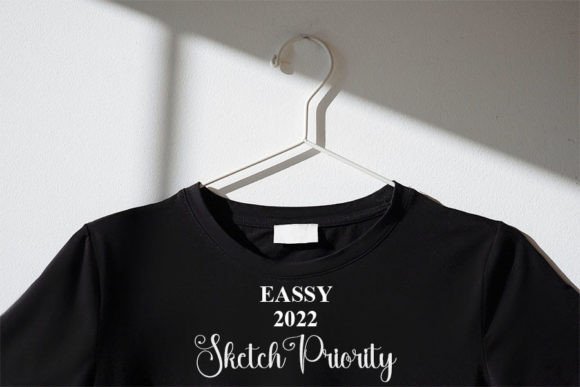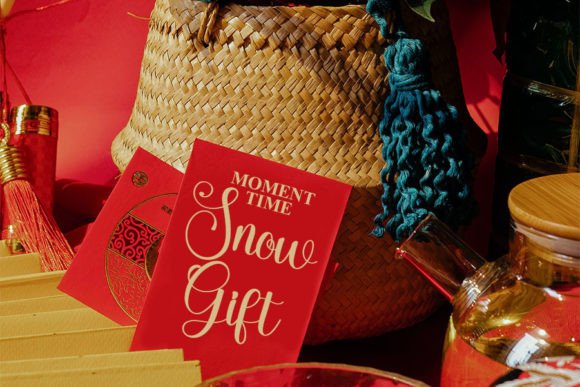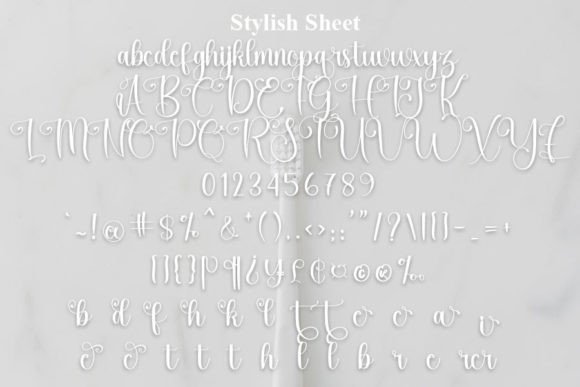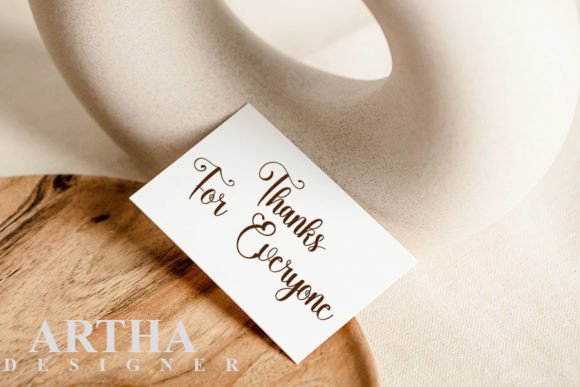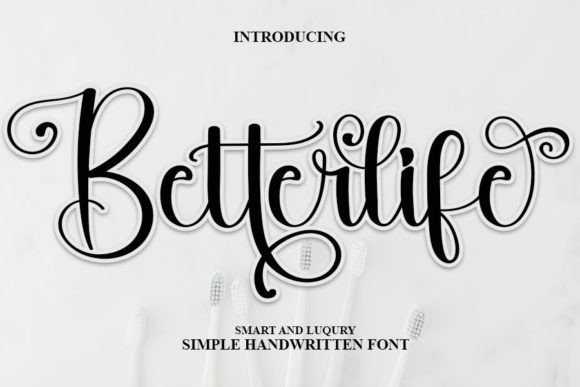
The Designer’s Delight: Unpacking the Betterlife Font
I’ll never forget the frustration of working on a branding project, only to hit a roadblock when searching for the perfect font. My client wanted something stylish, yet timeless; elegant, yet approachable. As I scrolled through font after font, I knew there had to be something better out there. That’s when I stumbled upon Betterlife – a stylish handwritten font that instantly captured my attention.
Here’s what I love about Betterlife:
- ✨ Timeless appeal: Betterlife’s classic calligraphy inspiration gives it an air of sophistication and elegance.
- ✅ Balanced and varied: The font’s nuanced strokes and carefully crafted letterforms make it perfect for a wide range of projects.
- 💫 Contemporary atmosphere: Despite its classic roots, Betterlife feels fresh and modern – ideal for designers looking for a font that’s both stylish and versatile.
As for quirks or limitations, I did notice:
- 🤔 Limited multilingual support: While Betterlife covers the basics, it might not be the best choice for projects requiring extensive multilingual support.
- ⚠️ Occasional kerning issues: As with any font, you might need to tweak kerning for optimal results, especially in larger text blocks.
- Experiment with OpenType features, such as stylistic alternates, to add visual interest to your text.
- Explore the OpenType panel to access glyphs, ligatures, and other advanced typographic features.
The Story Behind Betterlife: Designer Inspiration
According to its creators, Betterlife was inspired by the timeless beauty of classic calligraphy. The designers aimed to craft a font that would bring a touch of elegance and sophistication to any project, while still feeling approachable and modern. By combining traditional techniques with contemporary sensibilities, they created a truly unique and versatile font.
Q: What makes Betterlife a great choice for branding projects?
A: Betterlife’s classic calligraphy inspiration, combined with its modern sensibilities, make it an excellent choice for branding projects that require a touch of sophistication and elegance.
Q: How does Betterlife compare to other script fonts on the market?
A: Betterlife stands out from other script fonts due to its unique blend of classic and modern elements, making it both elegant and approachable. Its versatility and range of OpenType features also set it apart.
Q: Can I use Betterlife for multilingual projects?
A: While Betterlife covers the basics, it might not be the best choice for extensive multilingual projects. Be sure to check the font’s character set and language support before using it for a multilingual project.